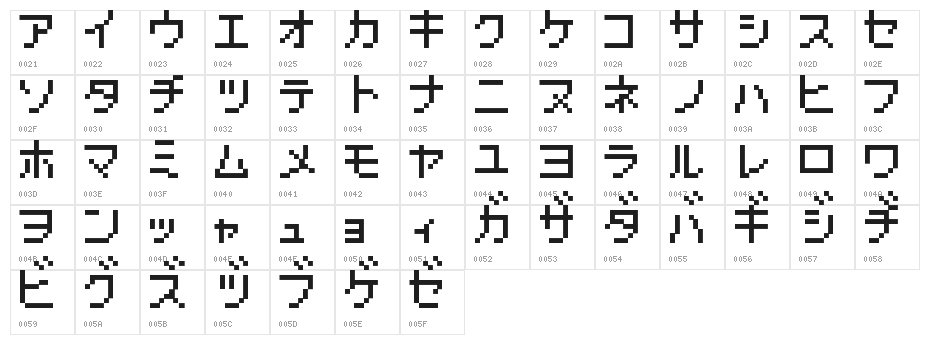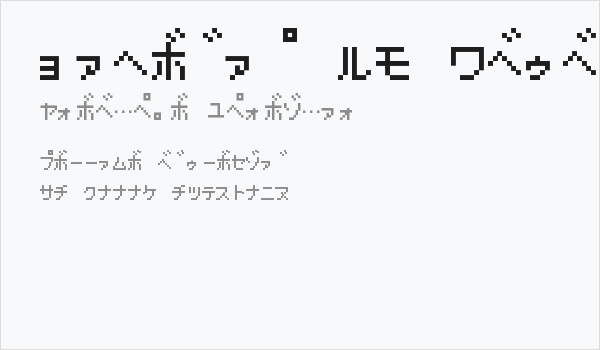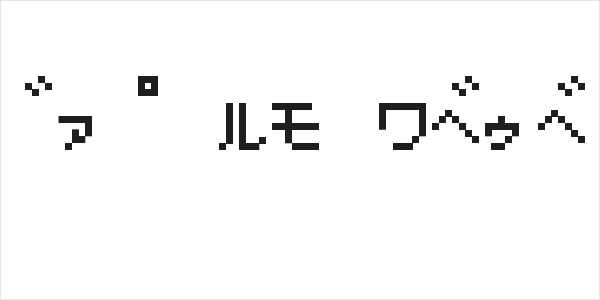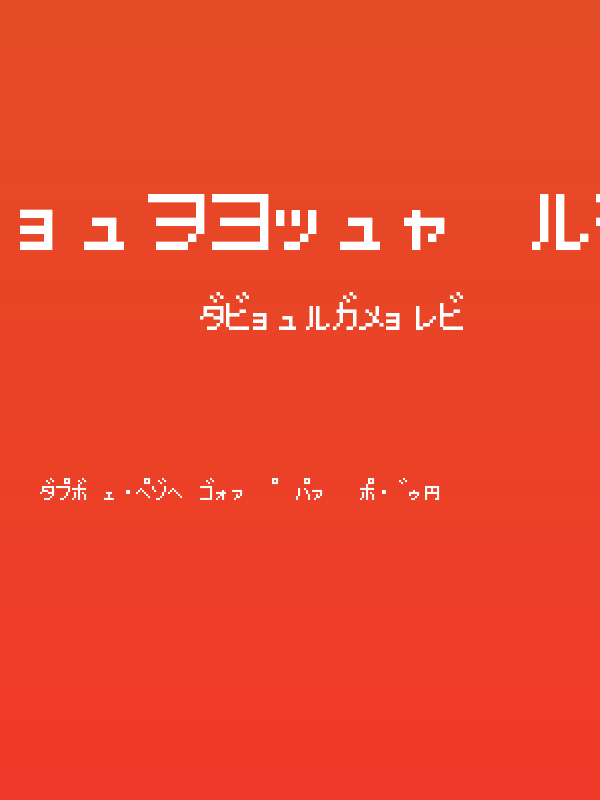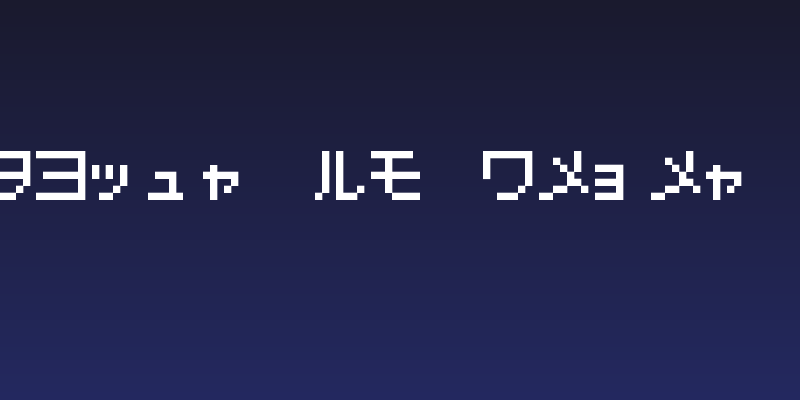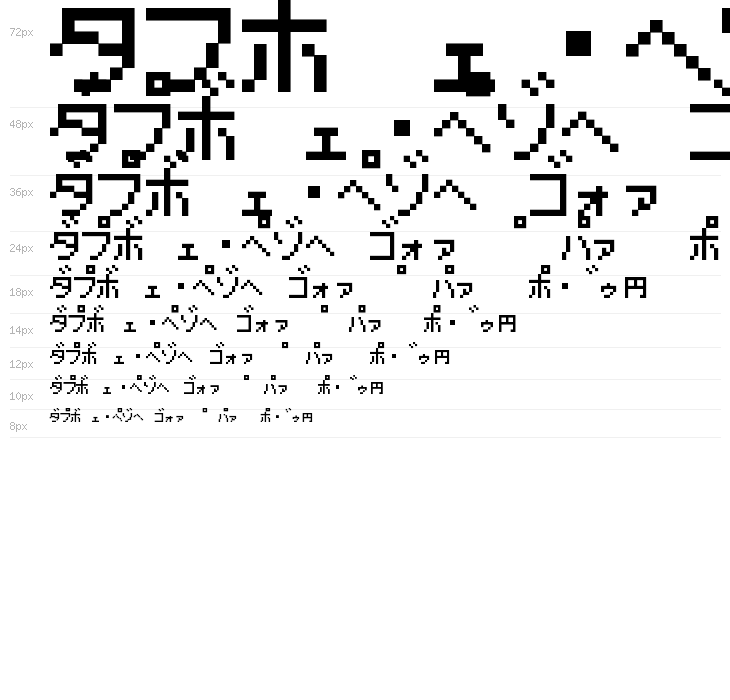
Pokemon GB Japan KT Font
Pokemon GB Japan KT Description
This font features a pixelated, blocky style reminiscent of classic video game graphics, particularly from the 8-bit and 16-bit eras. The characters are composed of small, square pixels, giving them a retro, digital appearance. The font includes a full set of katakana characters, which are commonly used in Japanese writing for foreign words, technical terms, and onomatopoeia. The design is highly legible, with each character distinctly separated, making it suitable for low-resolution displays. The pixelated nature of the font evokes nostalgia for early gaming consoles and computer systems, making it ideal for projects aiming to capture a vintage or retro aesthetic.
| Use Case | Logos, Headlines, Digital Art |
| Proposed Projects | Ideal for retro video game designs, nostalgic digital art, and projects requiring a vintage gaming aesthetic. |